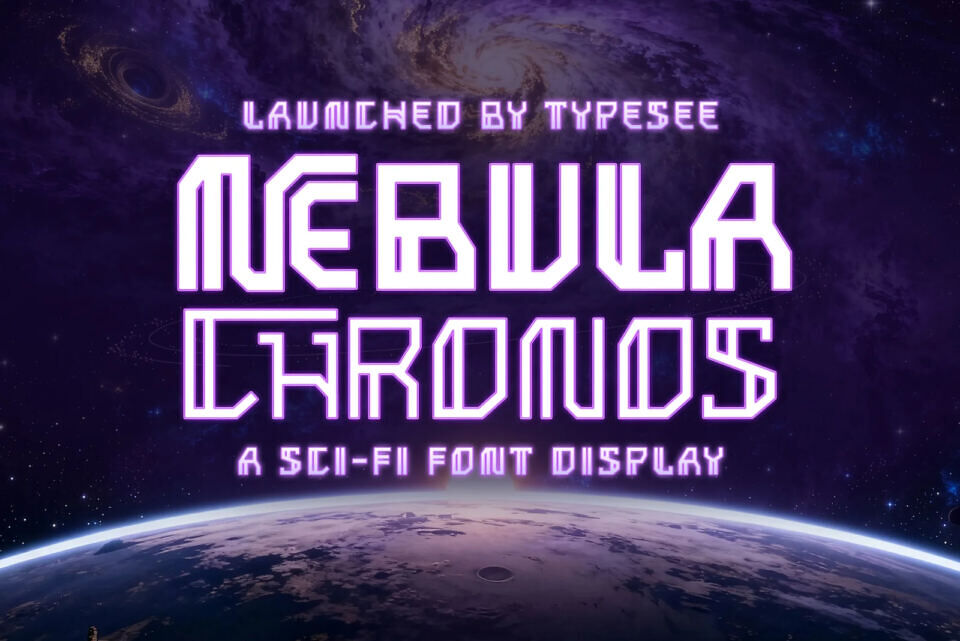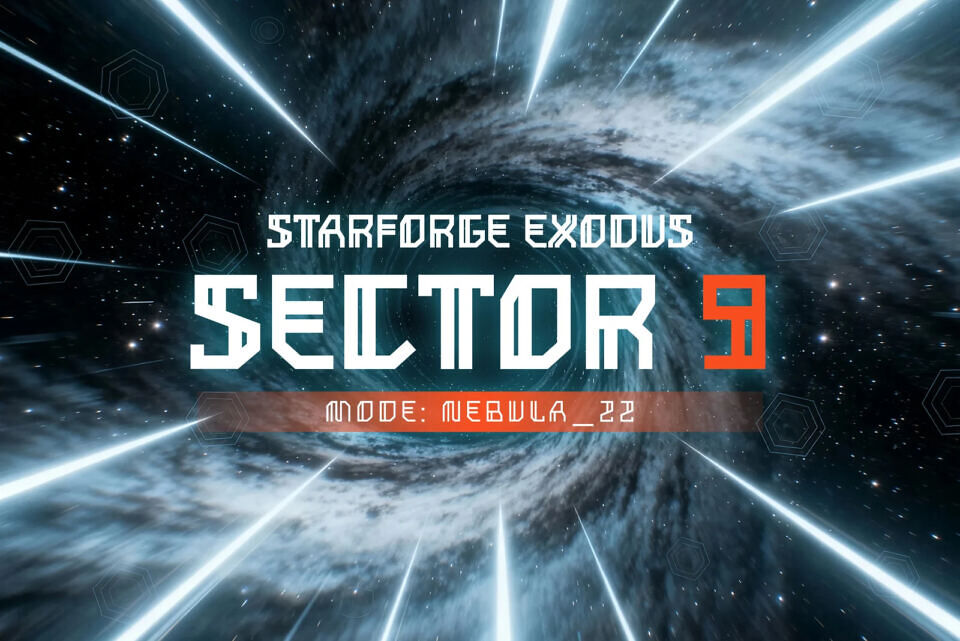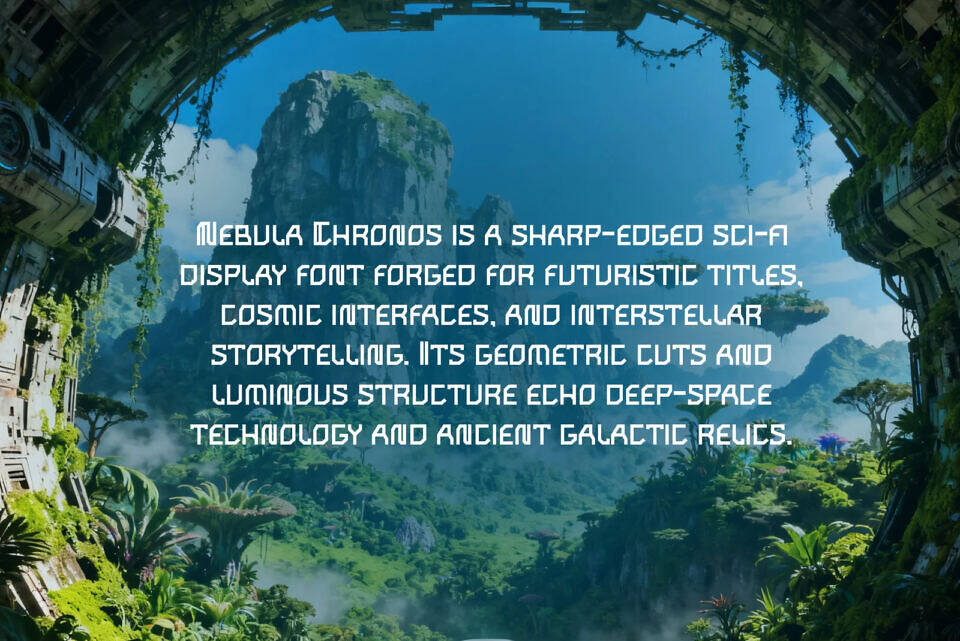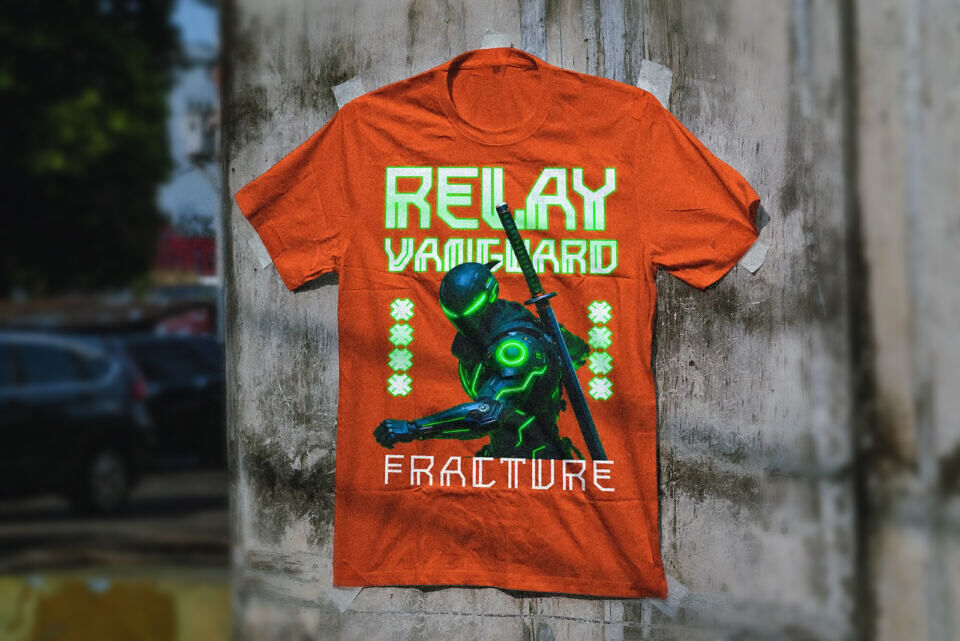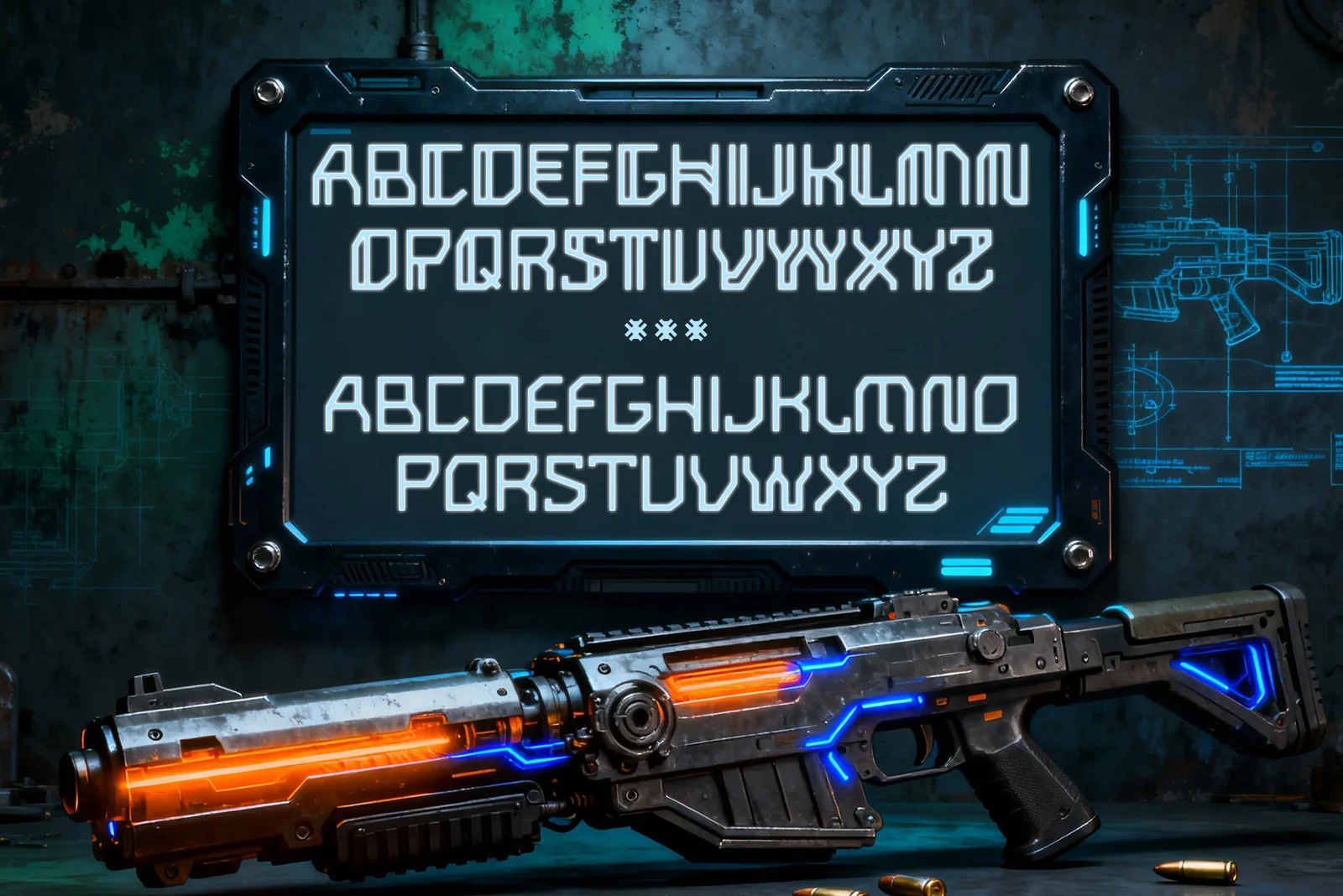
Nebula Chronos is a cutting edge sci-fi display font designed to bring the aesthetics of deep-space exploration and advanced technology straight into your creative projects. Featuring sharp geometric forms, luminous line cuts, and cyber-inspired glyphs, this typeface evokes the feel of alien alphabets, futuristic weapon interfaces, and holographic control panels.
Whether you’re designing game UI, sci-fi movie titles, tech branding, or digital posters, Nebula Chronos offers a striking, modern look that stands out in any futuristic environment. The font includes uppercase letters, alternates, numbers, and a full set of sci-fi themed symbols crafted to deliver maximum impact and readability in high-energy visual designs.